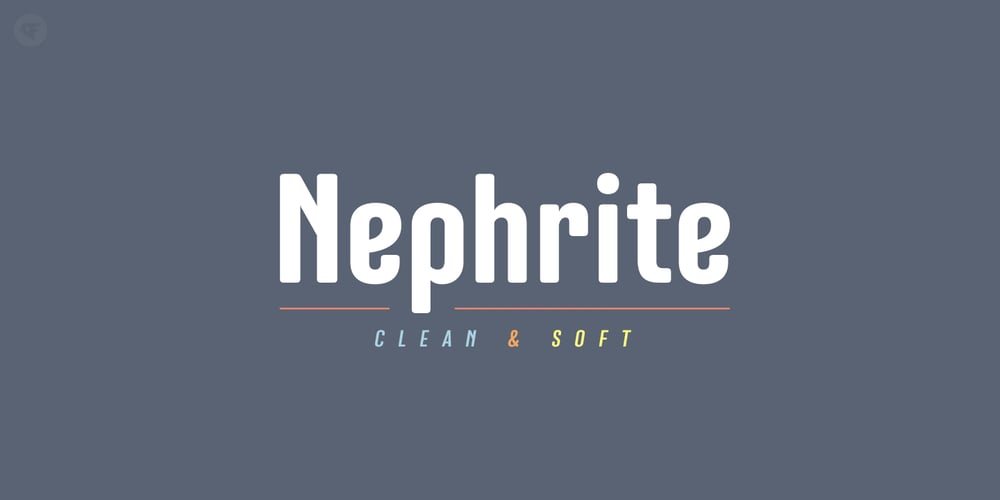
Nephrite Font Family was designed by Paul Chen and published by Nine Font. Nephrite contains 14 styles and family package options. Nephrite is a clean and soft family of 14 styles, 7 weights and italics. Recommended for text, magazine, book, logo and brandings.